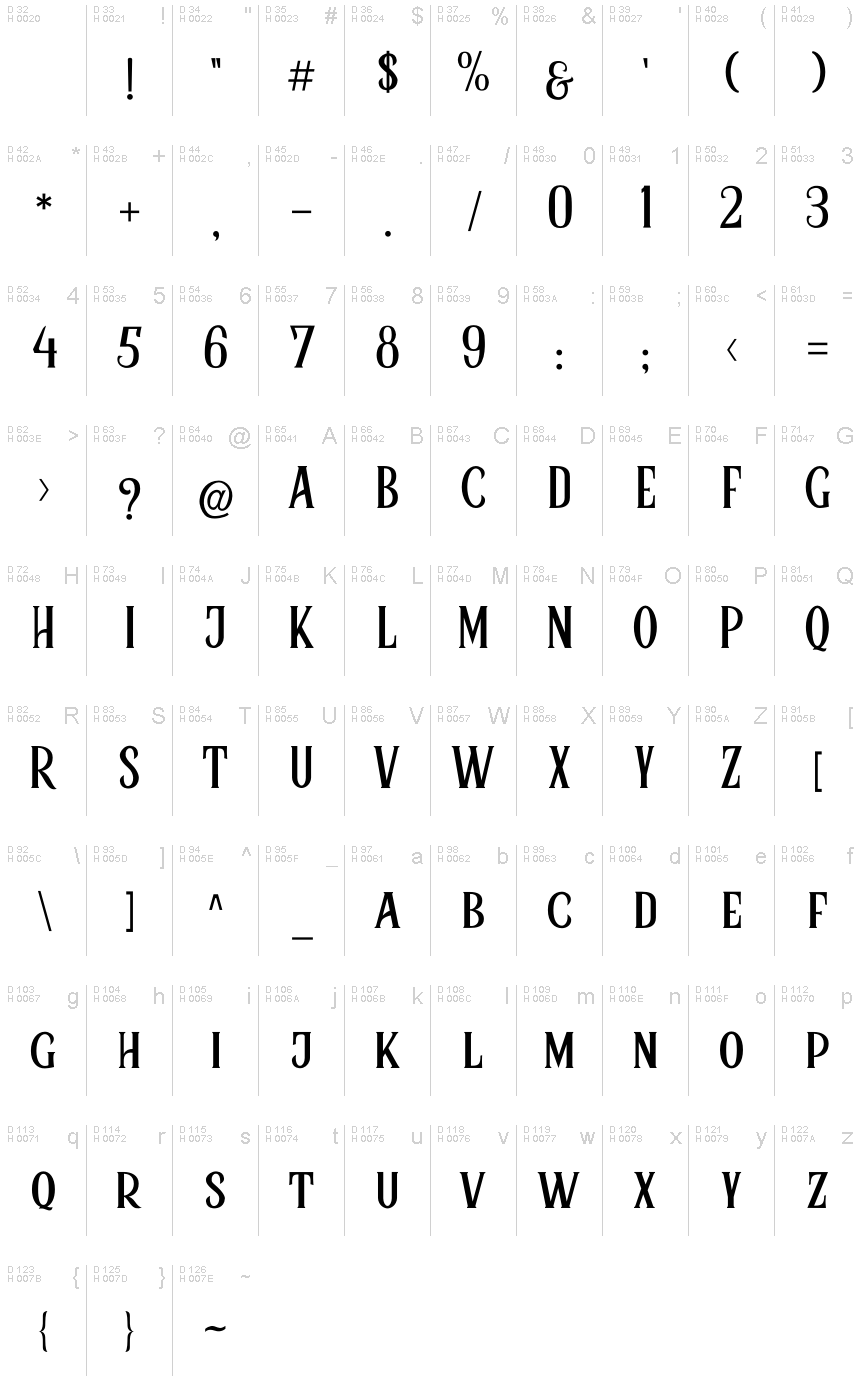
Bidon
Bidon font, crafted by Firstype Studio, is a striking display typeface that brings back the charm of retro aesthetics with its elegant serif design. Its condensed style adds a distinctive flair, making it perfect for creating bold headlines and captivating titles. The font's unique curvature and sophisticated lines capture attention instantly, offering both nostalgia and modern appeal.
Ideal for vintage-themed projects or stylish branding endeavors, Bidon font stands out in editorial layouts or creative advertisements. Designers looking to download a free font with character will find Bidon's versatility appealing across various design contexts. Whether for print or digital media, this font promises to enhance the visual impact of your work effortlessly.